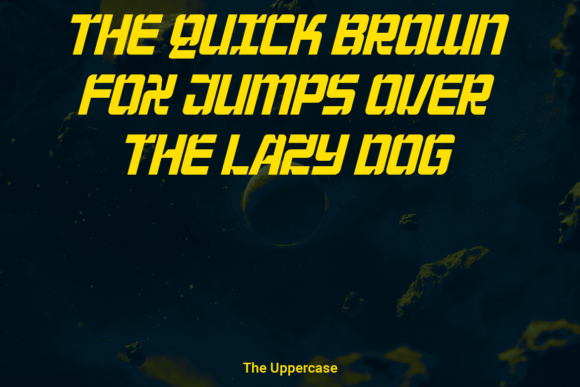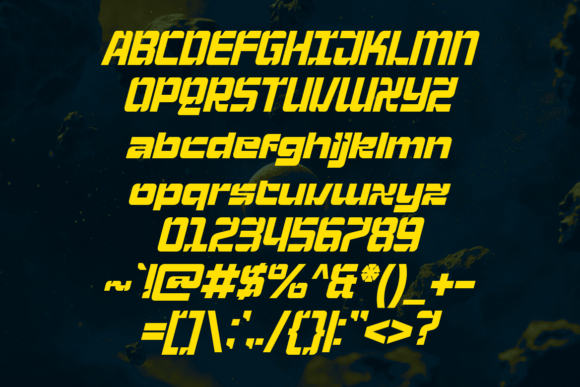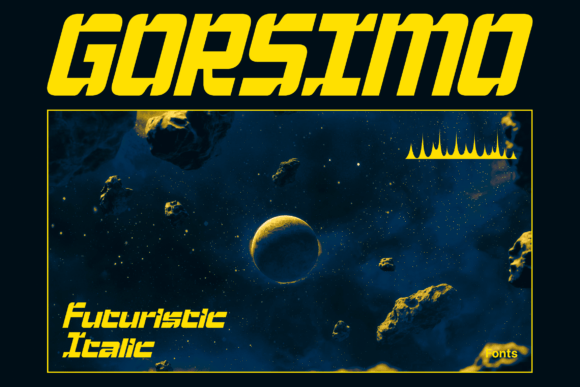
Gorsimo: The Future in Motion Get ahead with Gorsimo, a futuristic font designed with an italic shape that exudes speed, innovation, and the spirit of sci-fi.
Its dynamic curves and forward-leaning angles are perfect for projects that need to convey a sense of motion and cutting-edge design Whether you’re crafting branding, logos, gaming products, or working on technology peripherals, Gorsimo injects an experimental vibe that stands out in any futuristic landscape.